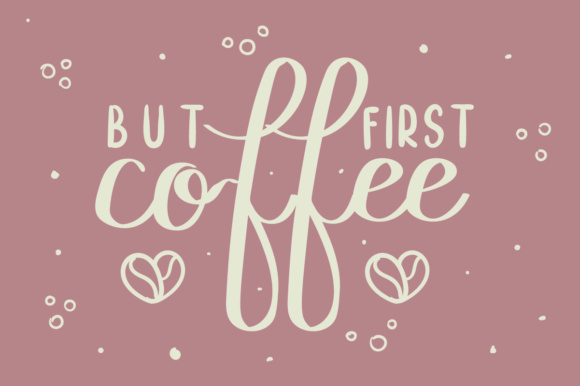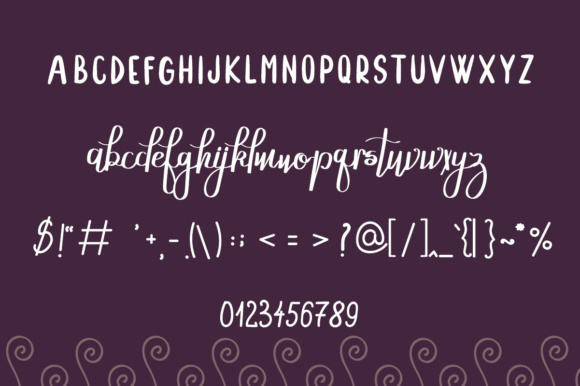
Introduction to Long Velvet Font
Imagine you’re working on a creative project, and you’re searching for the perfect font to give it that extra oomph. You’re browsing through design resources, scrolling through websites, and clicking on links. But then, you stumble upon something that catches your eye – the Long Velvet Font.
| 👤 Author | Lickable Pixels |
This beautiful font duo has captured the hearts of many designers, and for good reason. With its smooth, flowing letters, it’s perfect for adding a touch of elegance to any design project. Whether you’re working on a branding project or a social media campaign, the Long Velvet Font is sure to make a statement.
What makes the Long Velvet Font truly special is its unique blend of fun display letters and handwritten fonts. And the best part? It’s a high-quality font that’s available for free download, making it a valuable resource for designers of all levels.
Key Features of Long Velvet Font
- High-quality font with a luxurious feel, perfect for creative projects that require a touch of elegance.
- Designed to be highly versatile, the Long Velvet Font is ideal for use in various creative projects, from wedding invitations to fashion branding.
- Features a unique blend of modern and vintage elements, making it a standout design resource for any creative project.
Honest Review: Long Velvet Font
I recently came across the Long Velvet Font and I must say, it’s a great addition to any design project. The font is a free download, which is always a bonus, and it’s available in high quality, making it perfect for use in creative projects where you need a sophisticated and elegant look.
One of the things that works well with this font is its versatility. It’s suitable for a variety of design tasks, from logo creation to typography projects. The font also features a transparent background, which makes it easy to use on top of any image or background without any issues.
Here are some of the things I like about the Long Velvet Font:
- High quality design
- Suitable for various design tasks
- Only available in a few weights
- No italic or bold variations
Overall, I’m impressed with the Long Velvet Font and I would definitely recommend it to designers looking for a high-quality, elegant font for their creative projects. While it may have some limitations, its versatility and high-quality design make it a valuable addition to any design resource.
Long Velvet Font is a great resource for creative projects, such as wedding invitations, branding materials, or social media graphics. Its high quality and unique design make it a popular choice for designers looking for a free download.